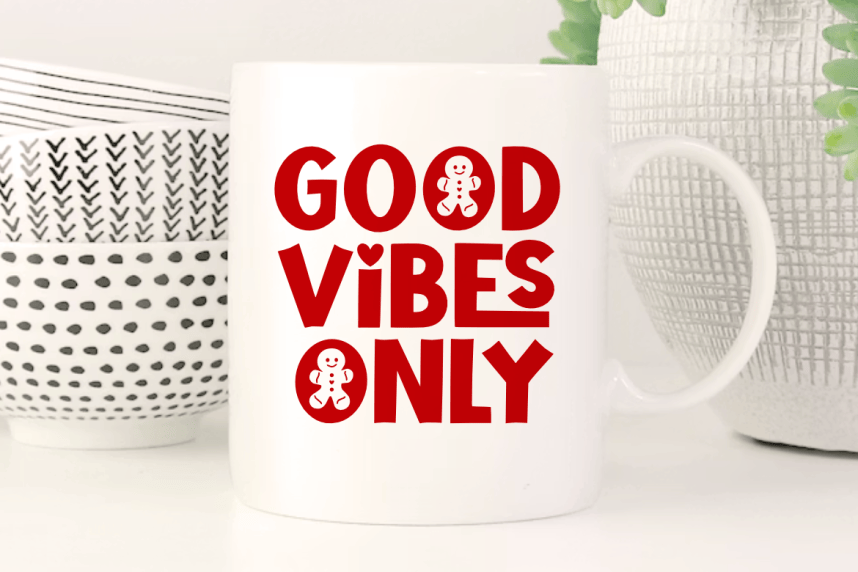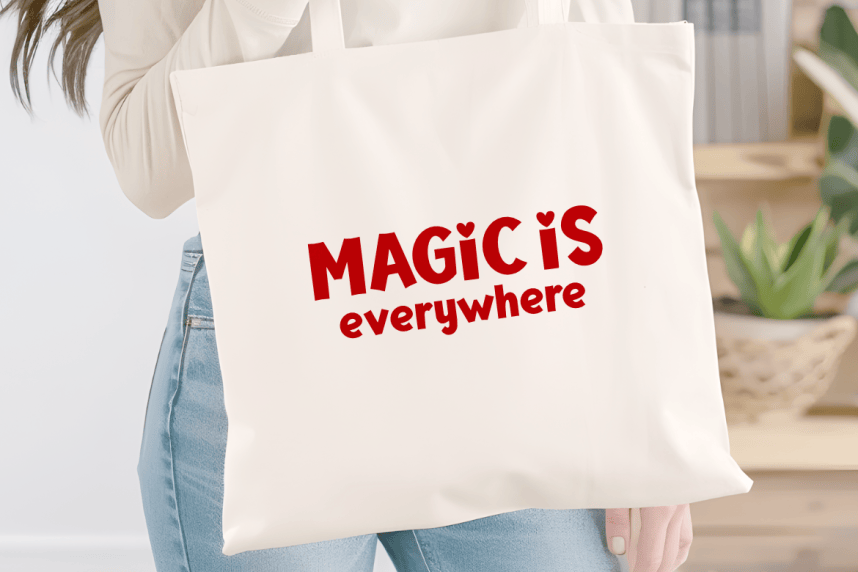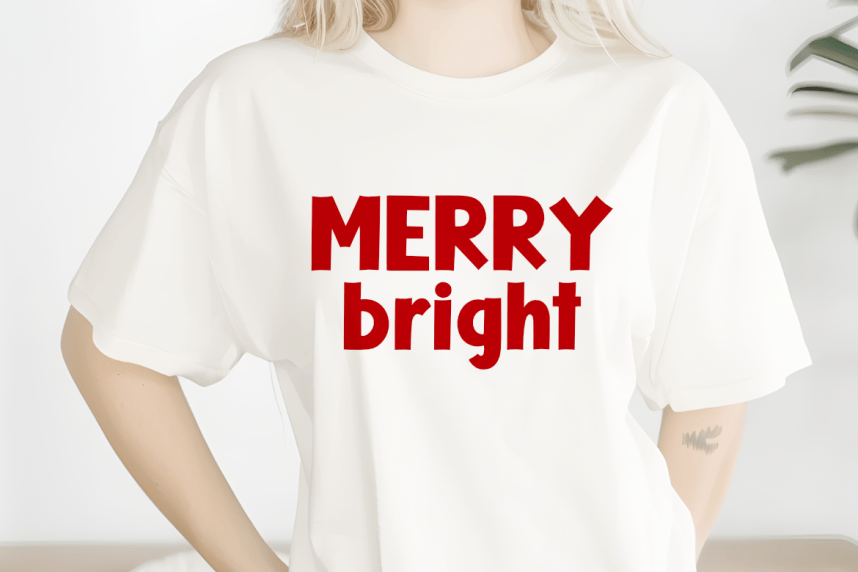
Snow Vibes Font
Snow Vibes Font is a charming and festive Cute Quirky Display Font specially crafted to bring a warm, cheerful, and magical holiday vibe to your creative projects. Featuring bold, chunky, and unique letterforms integrated with delightful seasonal accents like a cute gingerbread man and lovely heart details, this typeface is designed to make your projects stand out with a playful personality. Its clean and solid construction is optimized for the crafting community, ensuring a seamless and frustration-free experience for vinyl cutting, sublimation, and high-quality digital printing.